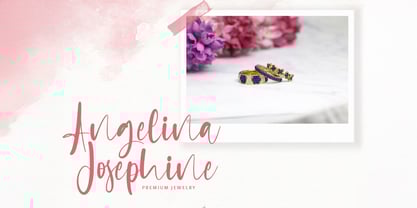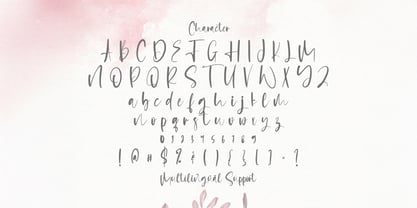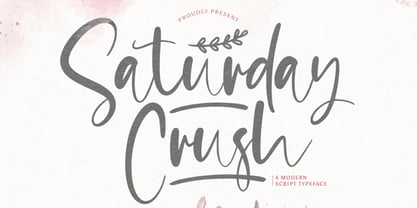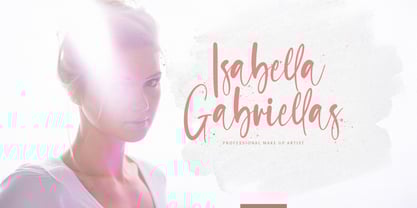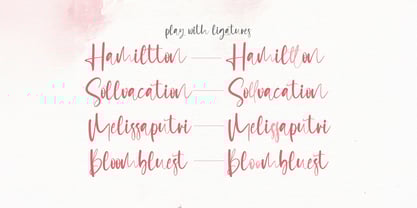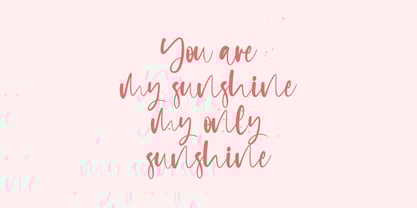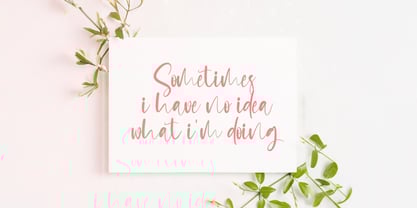
Saturday Crush
by Stringlabs Creative Studio
The Saturday Crush Font Family was designed by Virgiawan Listanto and published by Stringlabs Creative Studio. Saturday Crush contains 1 styles. More about this family
Saturday Crush is a charming and authentic handwritten font that perfectly captures a casual, personal feel. Its relaxed strokes and natural imperfections give it a genuine, friendly vibe, making it ideal for designs that need a touch of warmth and sincerity.
Designers: Virgiawan Listanto
Foundry: Stringlabs Creative Studio